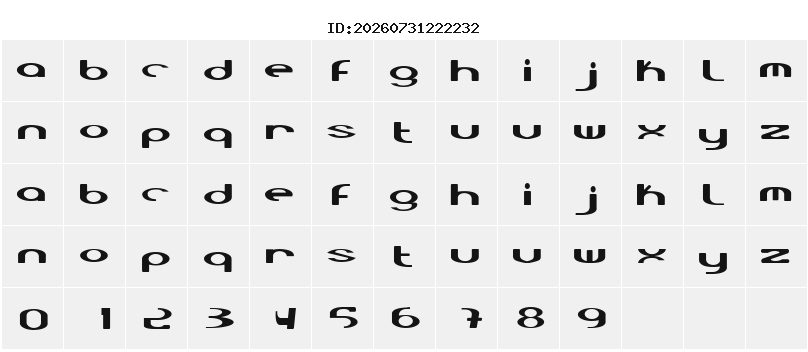
LaureHead Preview
About LaureHead.ttf
LaureHead.ttf is a modern, elegant sans-serif font designed for ultimate readability and visual harmony. Perfect for branding, headlines, web design, and print materials.